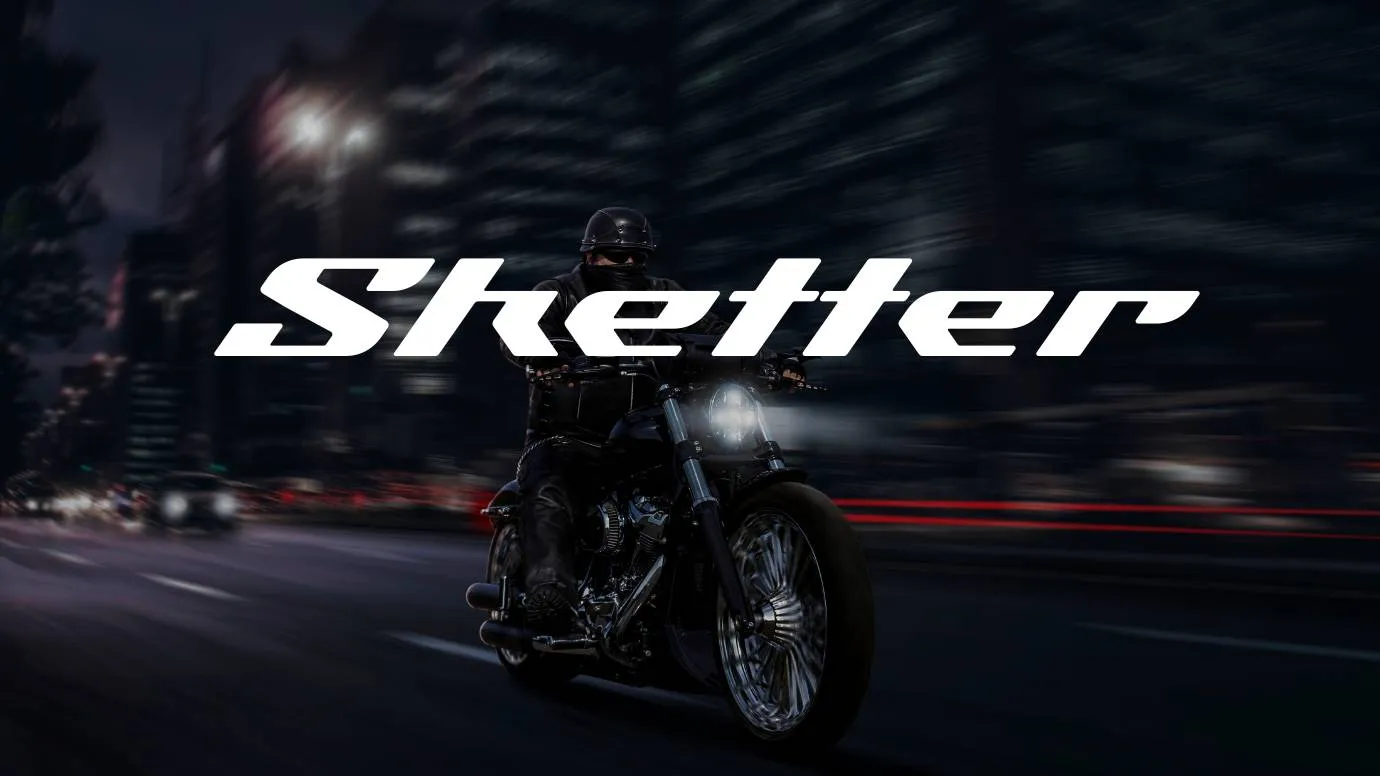
Sketter Font Family comes in the techno display type font and it has many elegant styles. Anthonie Van Hayu is the main and original designer of this typography. This individual font was finally released by ARToni for the first time.
Some additional features of this typeface make it more effective than others. The uppercase letters, lowercase letters, numbers, and punctuation of this texture are available in the OTF and TTF formats of this font. The Sharp corners of this typeface make it more effective.
| Name | Sketter Font |
| Type | Display |
| Designer | Anthonie Van Hayu |
| Foundry | ARToni |